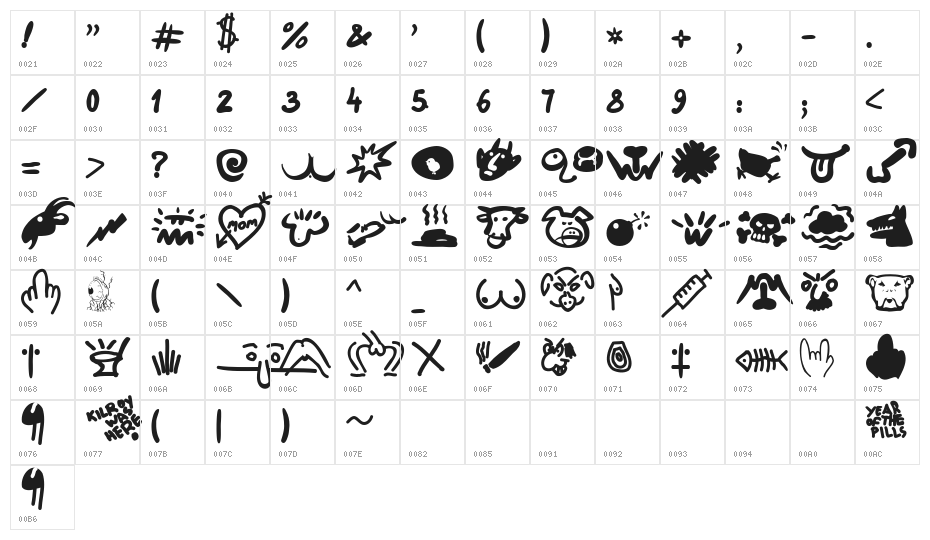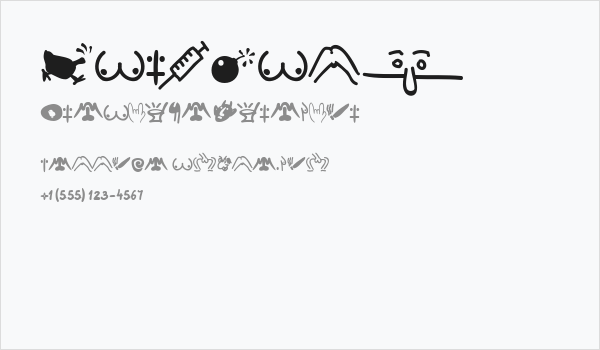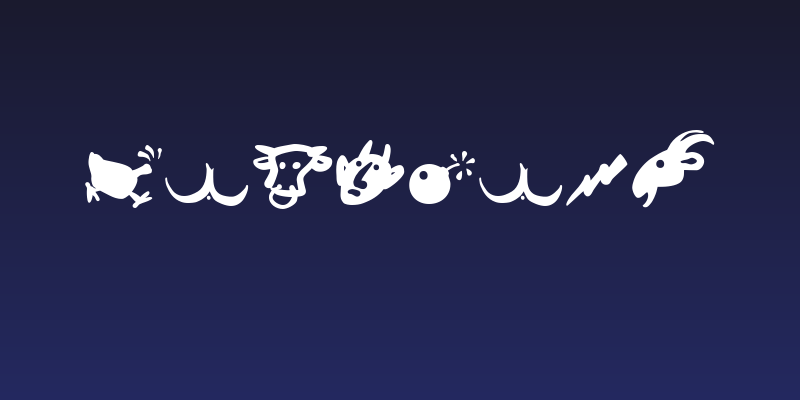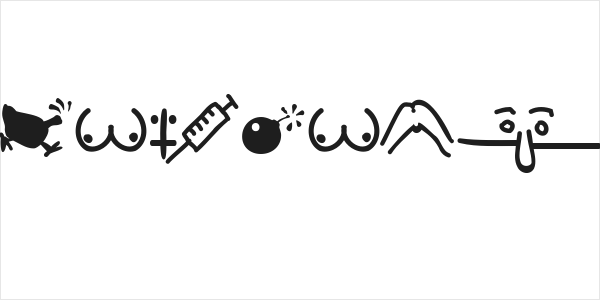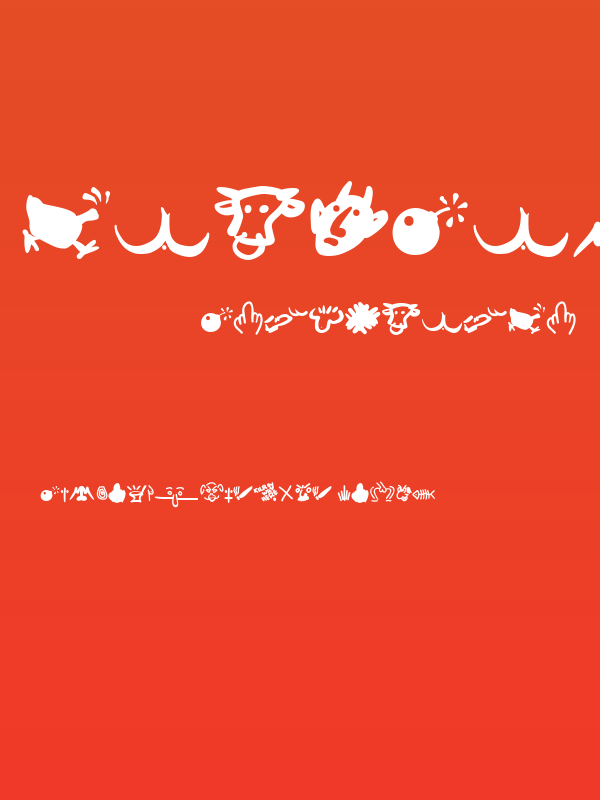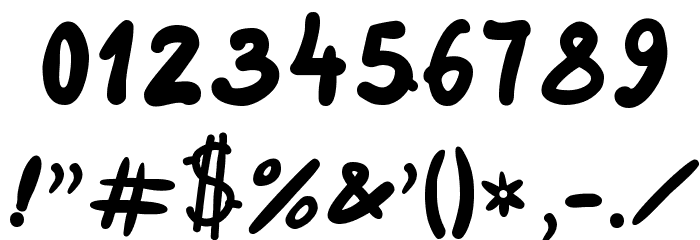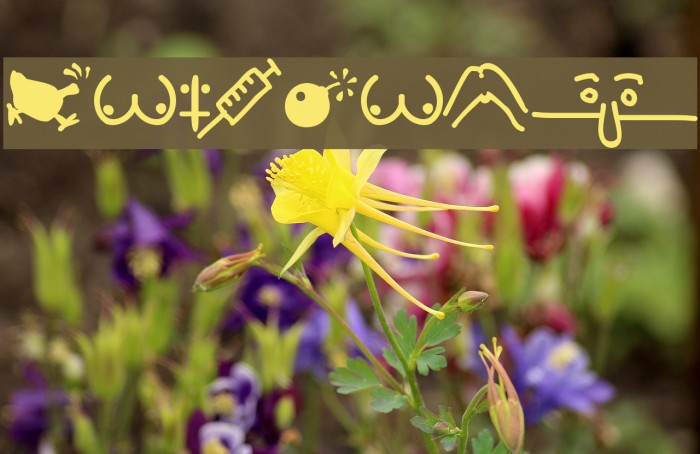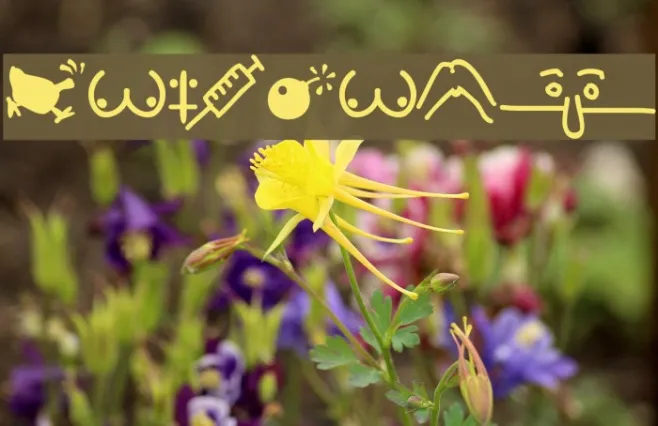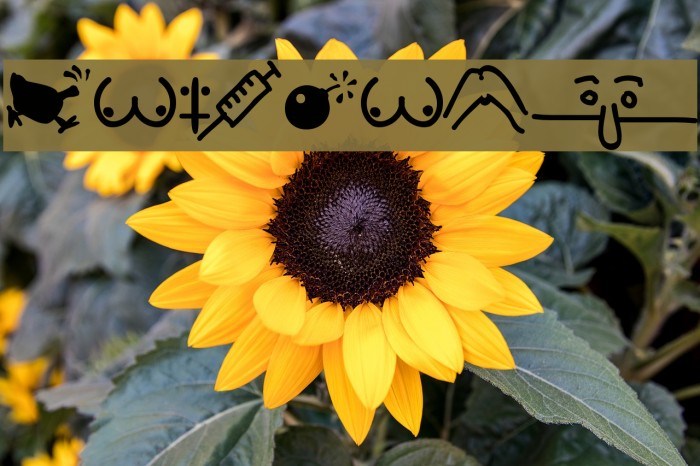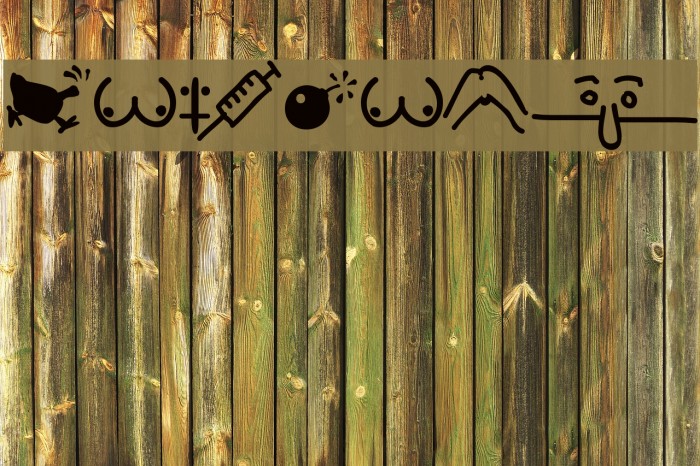
HardTalk Font
HardTalk Description
This is a highly decorative and playful font that features a variety of whimsical and cartoonish symbols instead of traditional alphabetic characters. Each character is represented by a unique illustration, ranging from abstract shapes to recognizable objects and humorous depictions. The numbers are more traditional but still maintain a playful, rounded style. The special characters are also creatively designed, adding to the overall quirky and artistic feel of the font.
| Use Case | Logos, Posters, Creative Projects |
| Proposed Projects | Ideal for creative projects such as comic books, children's books, playful branding, or any design that requires a fun and artistic touch. |